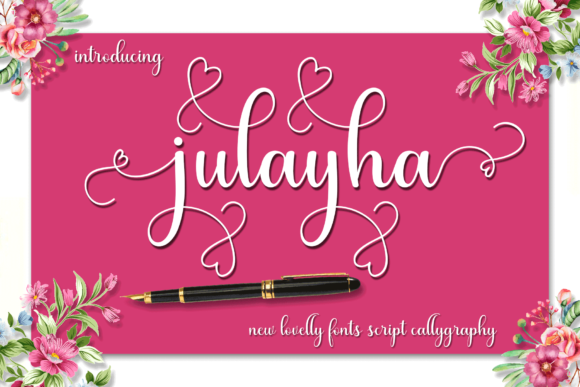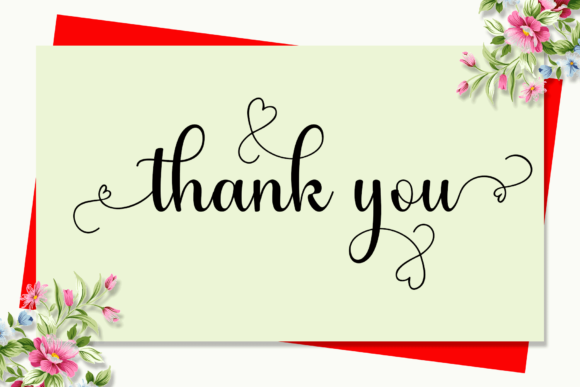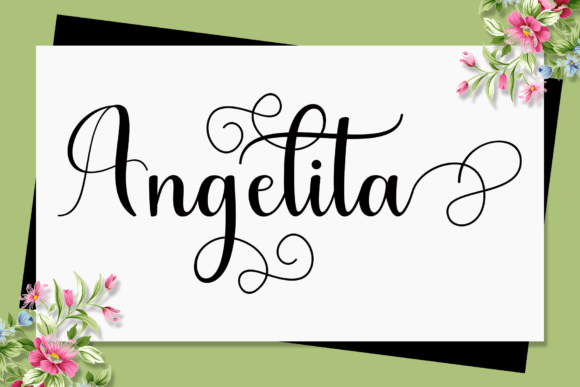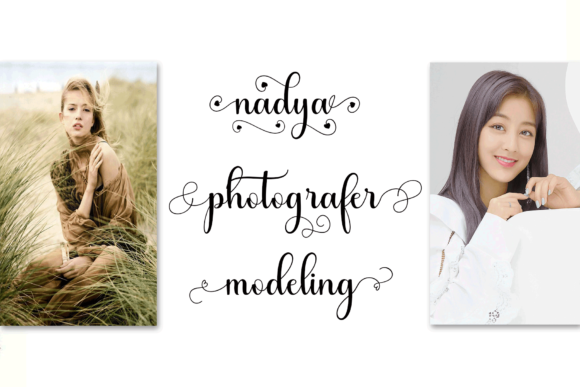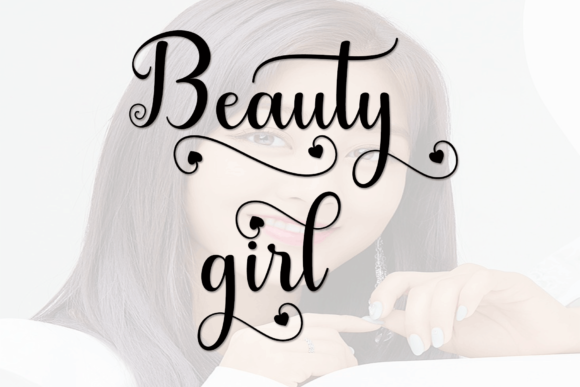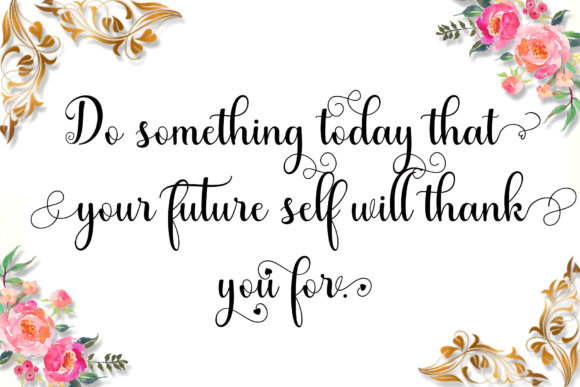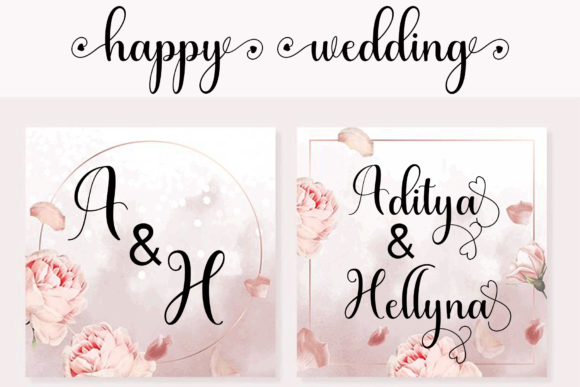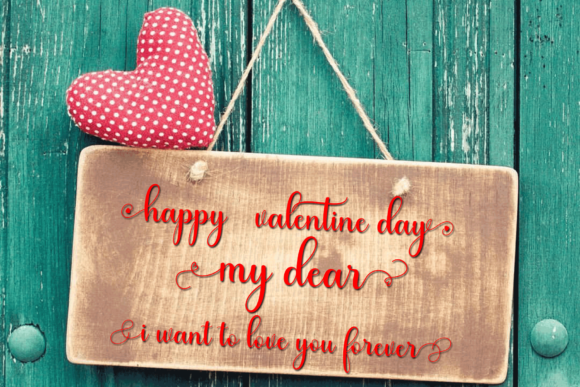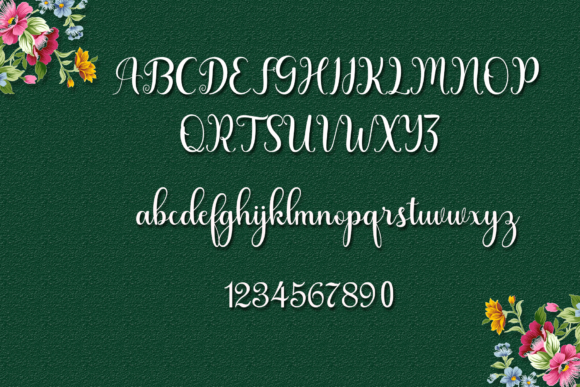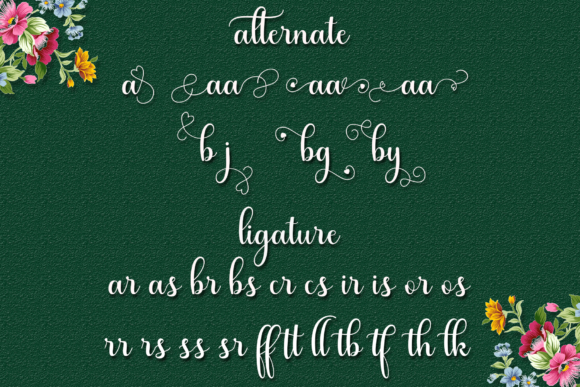
Julayha Font
About Julayha Font
Julayha is a sweet, soft hand-lettered script. The playful rounded characters make it the perfect font for creating stunning crafts. Julayha comes packed with stunning swashes, that will allow you to add a decorative touch within seconds. Fall in love with its authentic feel and use it to create gorgeous wedding invitations, beautiful stationary art, eye-catching social media posts, and cute greeting cards.
This font is PUA encoded which means you can access all of the magical glyphs and swashes with ease! It also features a wealth of special features including alternate glyphs and ligatures.